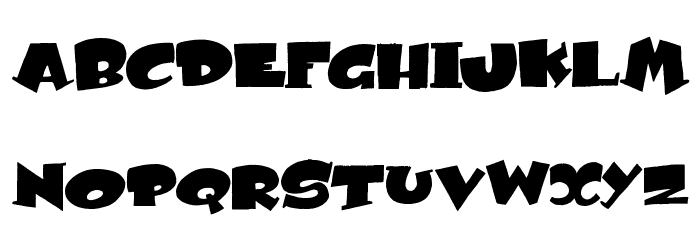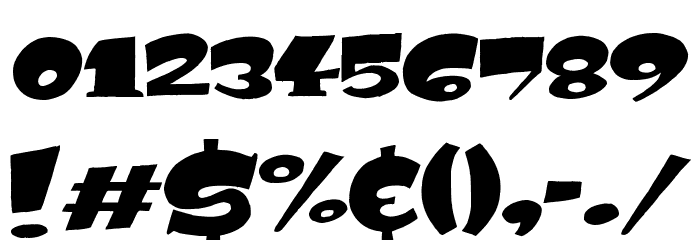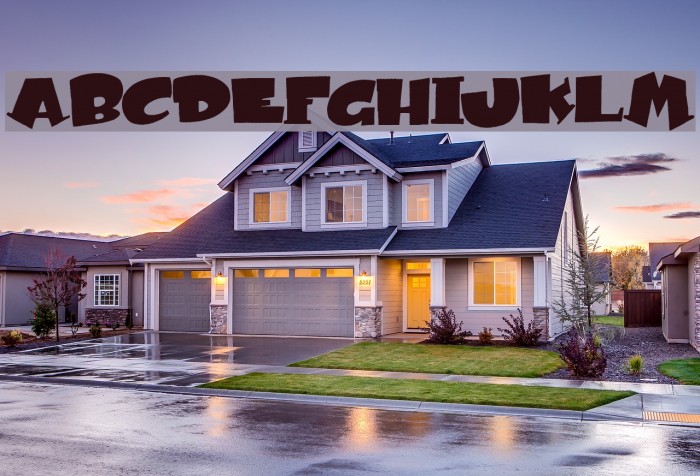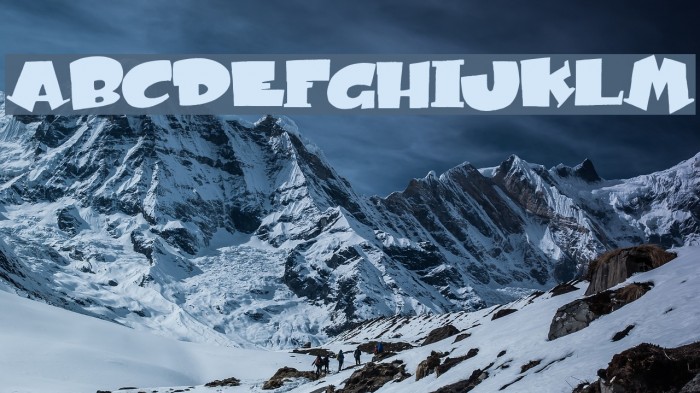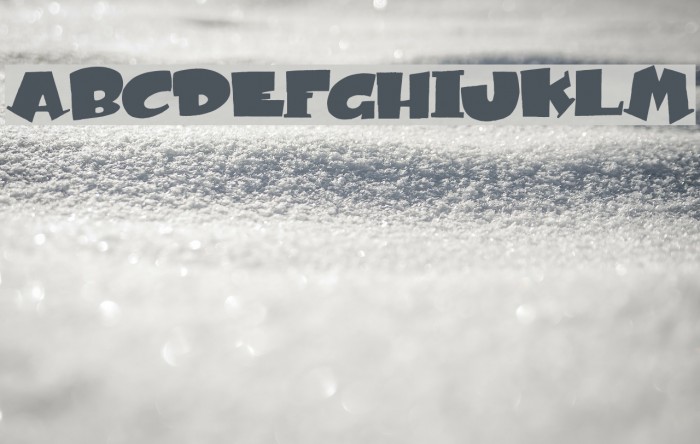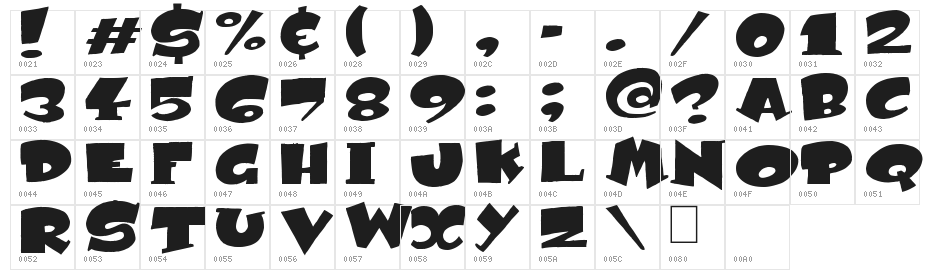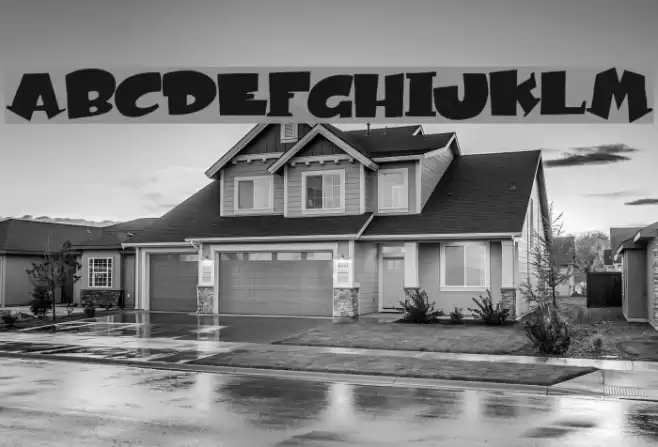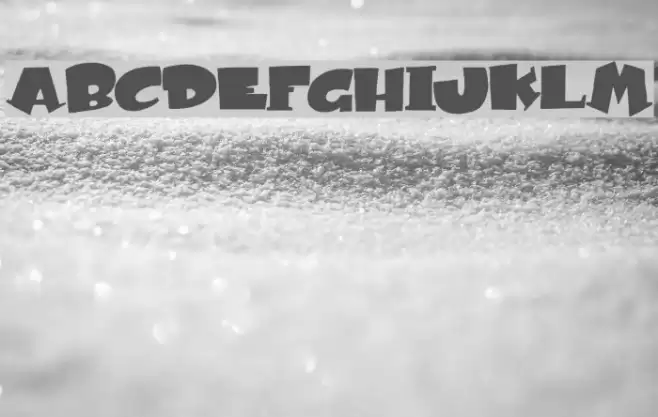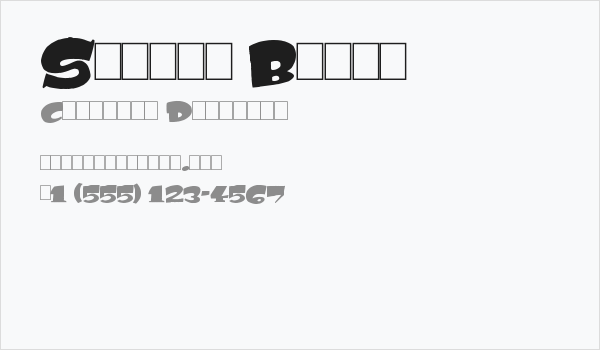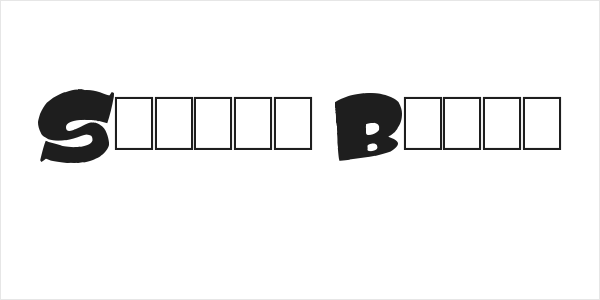
Subito Black Font
This font features a bold and dynamic style with a strong presence, characterized by its thick strokes and playful, slightly irregular shapes. The letters have a cartoonish and energetic feel, making them stand out with a sense of movement and fun. The uppercase and lowercase letters maintain a consistent weight, providing a cohesive look across the alphabet. The numbers and special characters follow the same bold and lively design, ensuring uniformity throughout the font. Its unique style is suitable for projects that require a touch of whimsy and boldness.
A bold, playful font with thick strokes and a dynamic, cartoonish style.
- Proposed Projects: Ideal for children's books, comic strips, playful branding, and eye-catching posters.
- Overall Style: Playful, Cartoonish, Energetic
- Use Case: Headlines, Posters, Branding